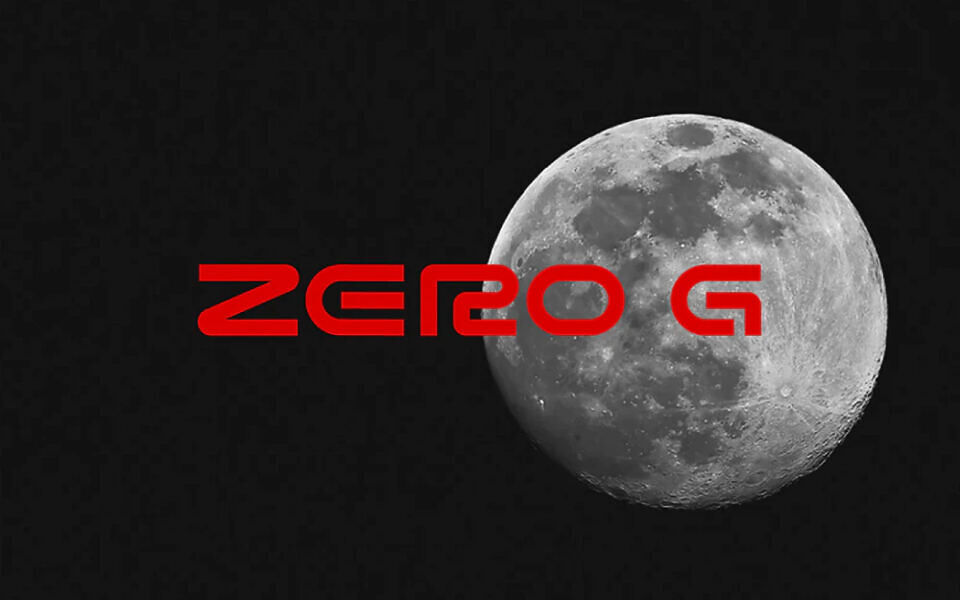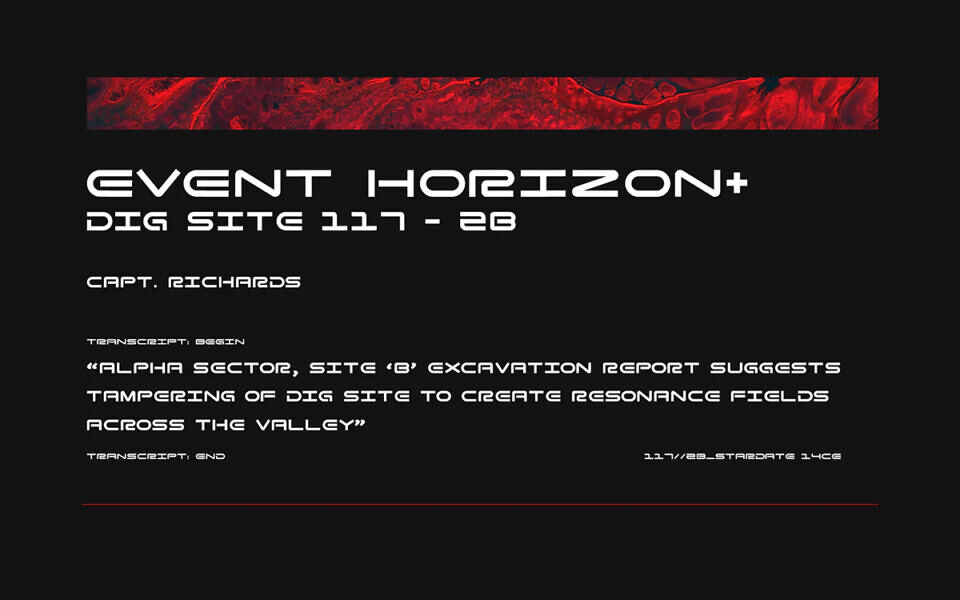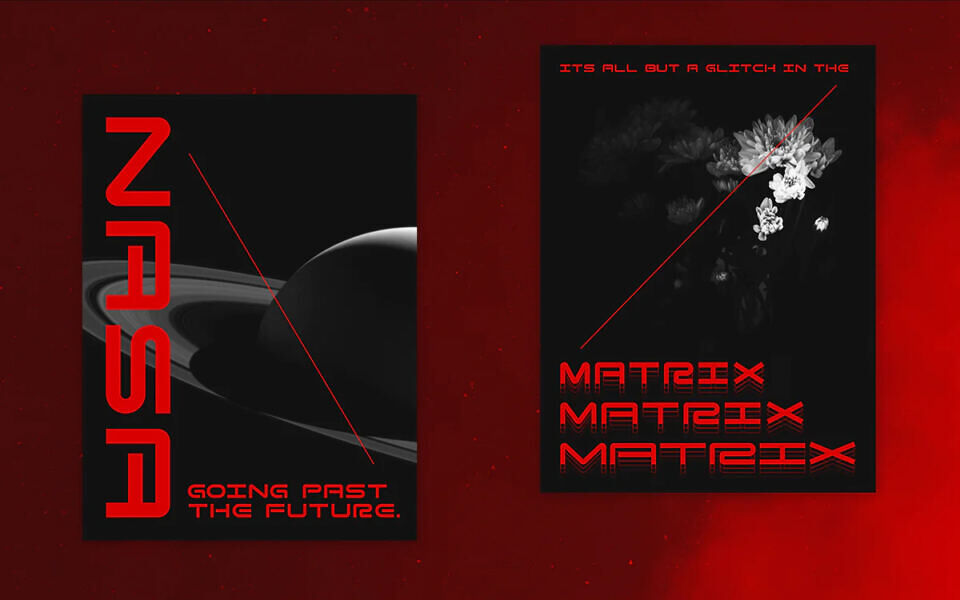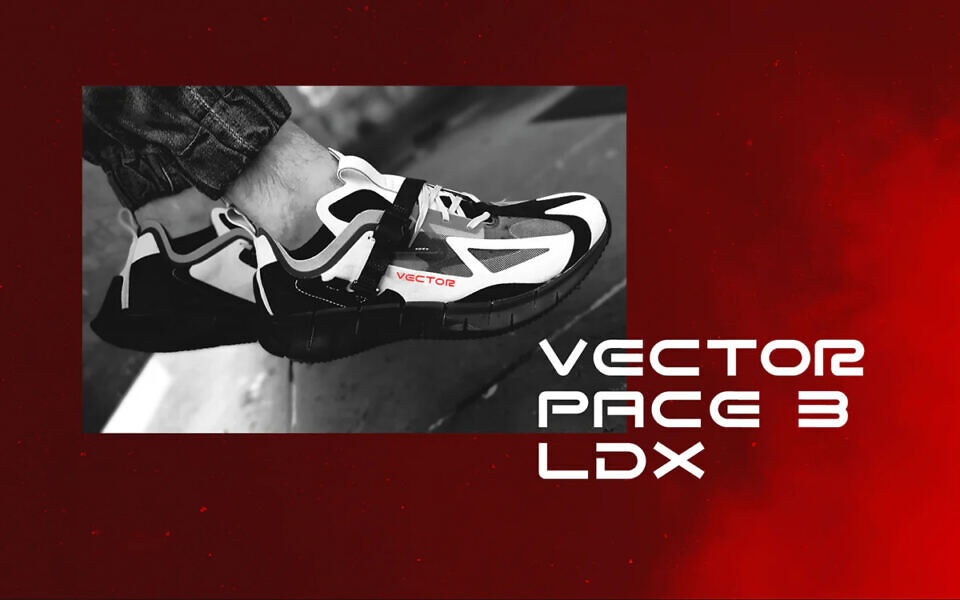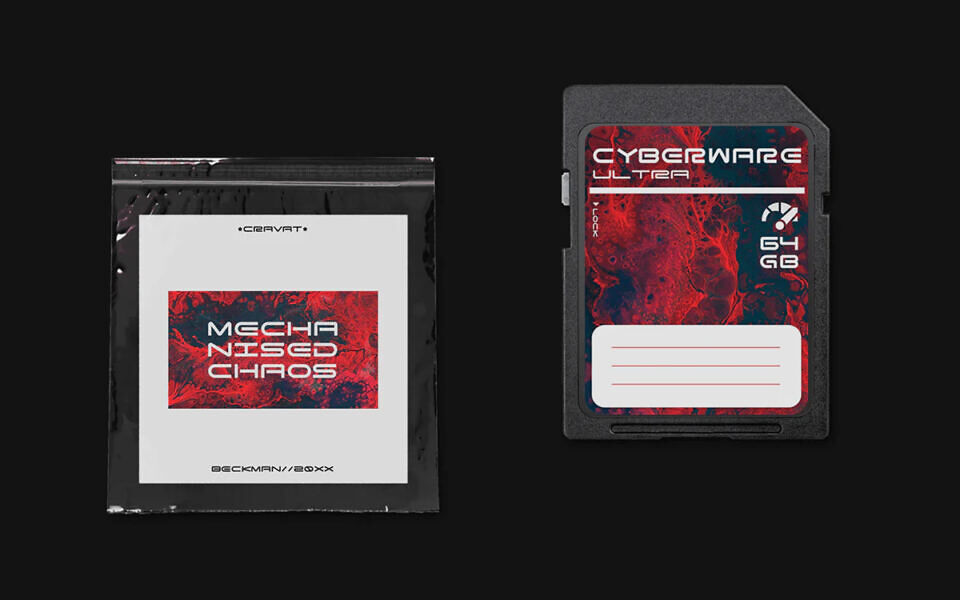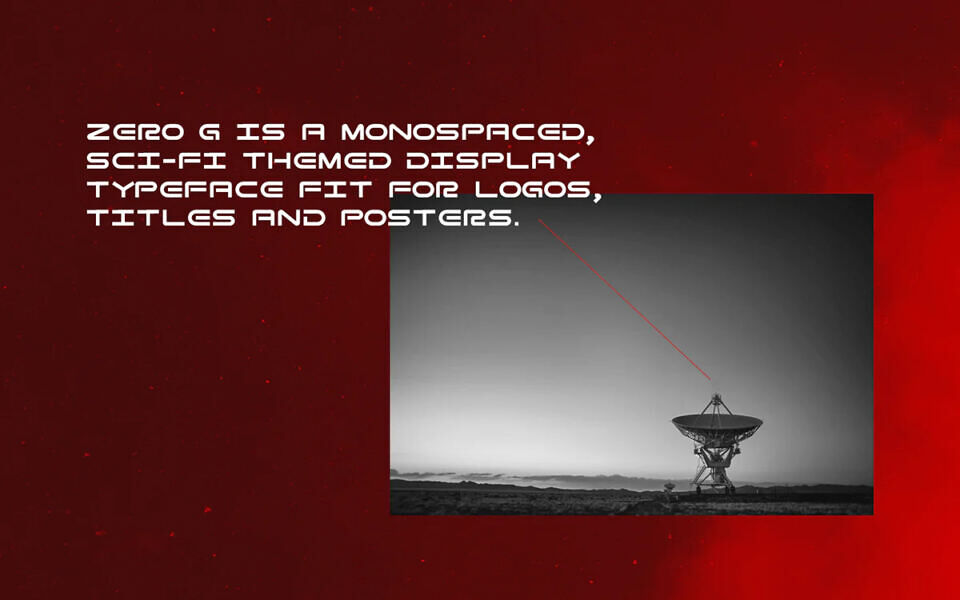
Zero G is a dynamic monospaced sans serif display font created by Aromal Ashok. This free font takes modern to a whole new level!
Inspired by space travel & futurism, Zero G is perfect for posters, apparel, headlines & logos. Included are 3 variable styles: Regular, Wide, Ultra Wide.